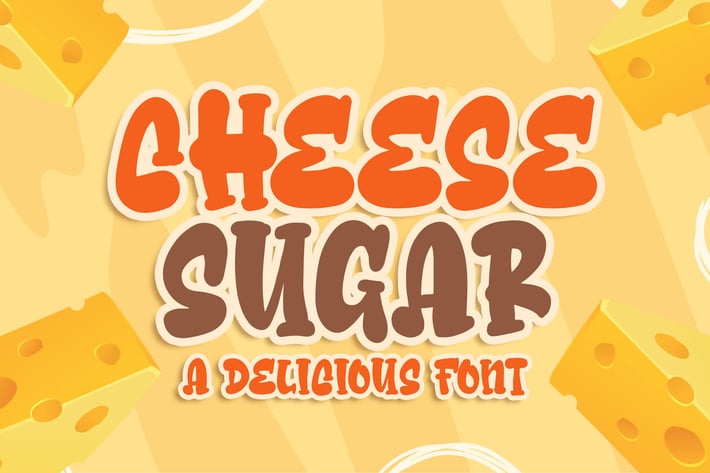
Cheese Sugar a Delicious Font
Introducing of our new product the name is Cheese Sugar a Delicious Font inspired by cartoon style with a fun theme very good for birthday invitation, kids poster, food Menu, food poster, craft etc